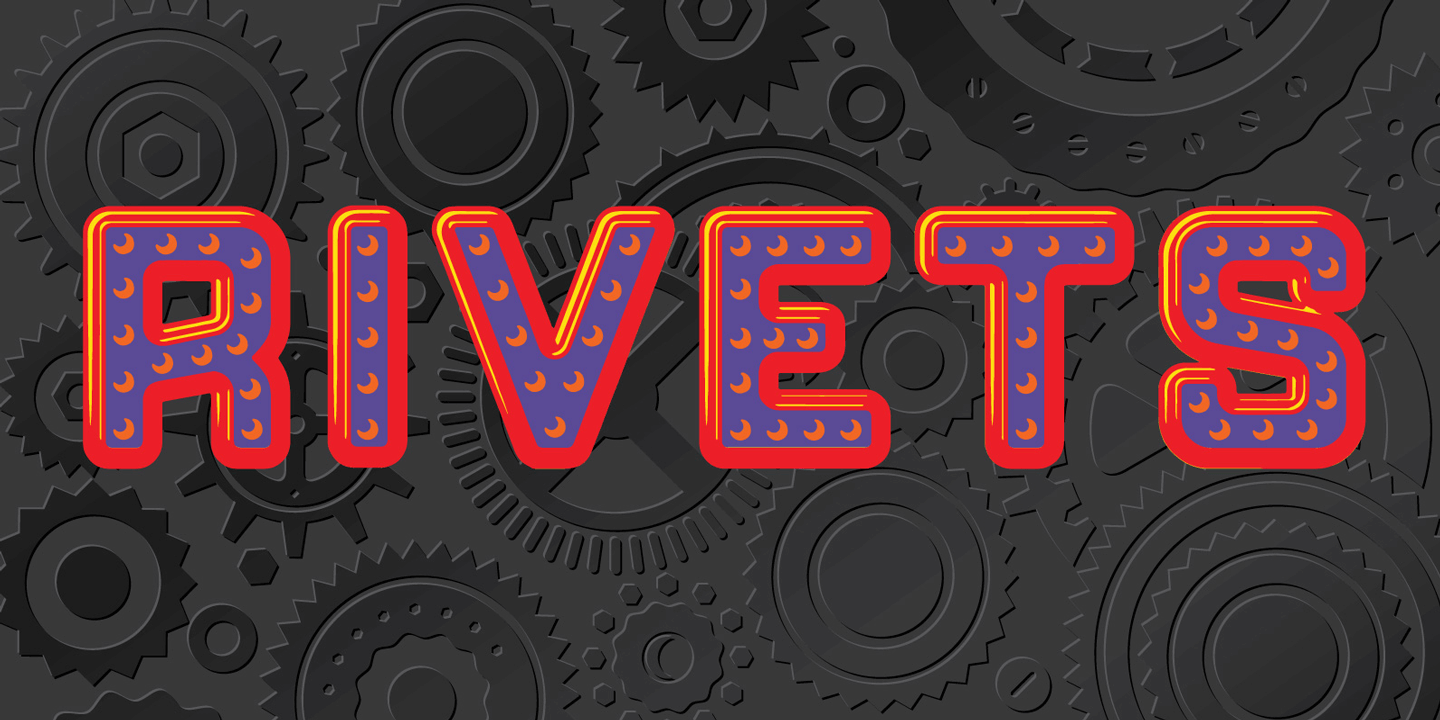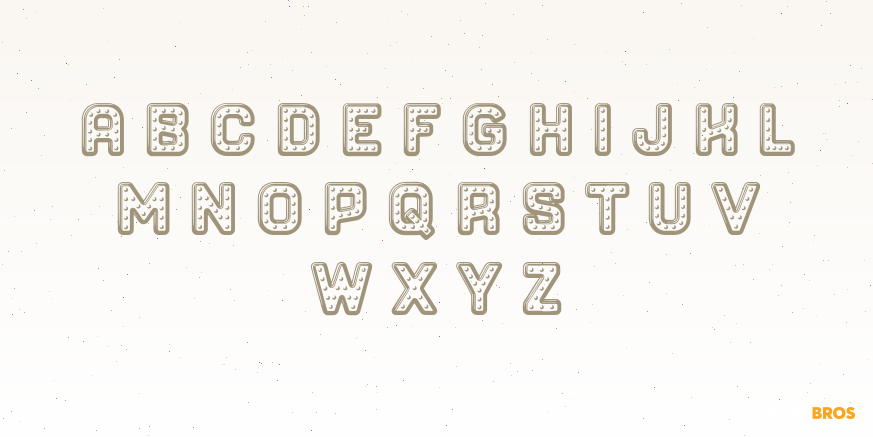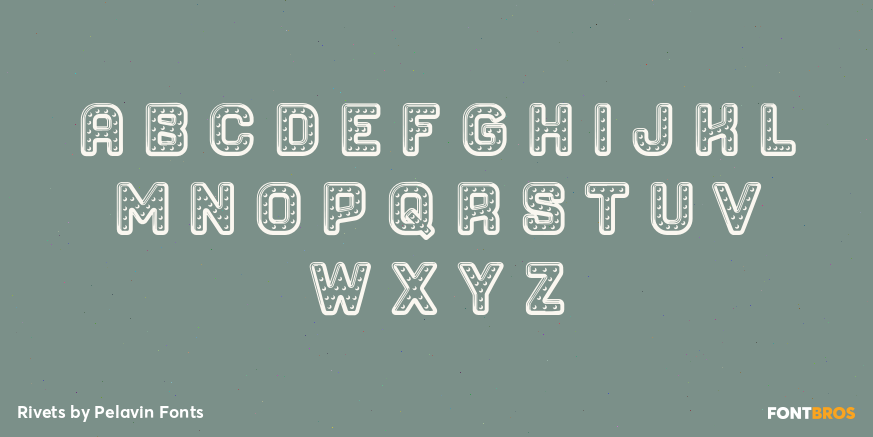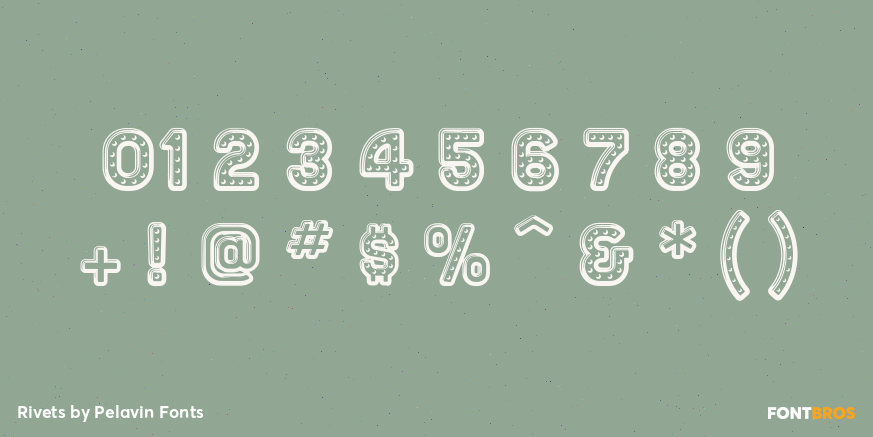
Rivets
Font Family by Pelavin Fonts
Rivets is a result of my fascination with the beauty I find in utilitarian industrial objects like the riveted stanchions in New York subway stations, decorative ironwork in Grand Central terminal and the eloquent construction details of the urban infrastructure of the 19th and early 20th century.
It began its life as die-raised sign typography for a magazine cover assignment, developed further for a book cover about mid-20th century American manufacturing and evolved into a complete font plus four individual components suitable for producing multiple color variations.
The Rivets package is a five font set that allows up to four individual colors to be applied to live type.